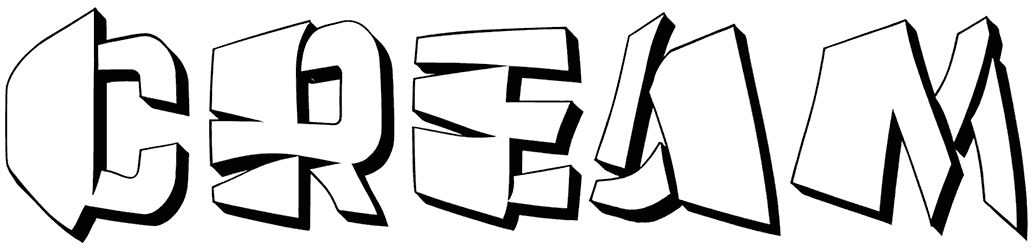
Cream Font
Do you want to evoke the atmosphere of the Stone Age in your designs? So, create this feeling by adding Cream to your projects. This stone font is presented in three styles and supports only capital letters.
It has a very dominant visual expression that it presents through its rough edges. So, if you need to highlight the identity of a brand or want to look powerful from the beginning, add this font to your collection.